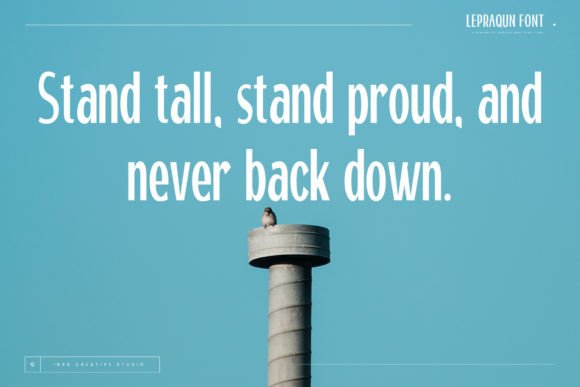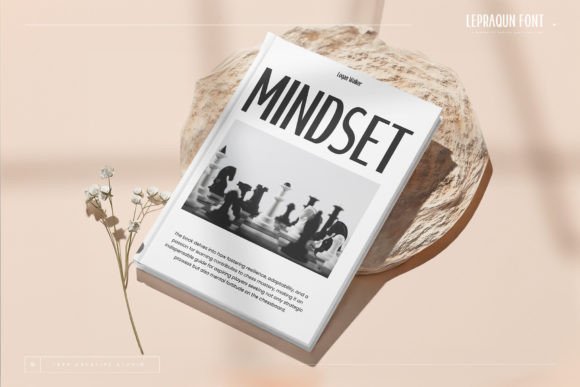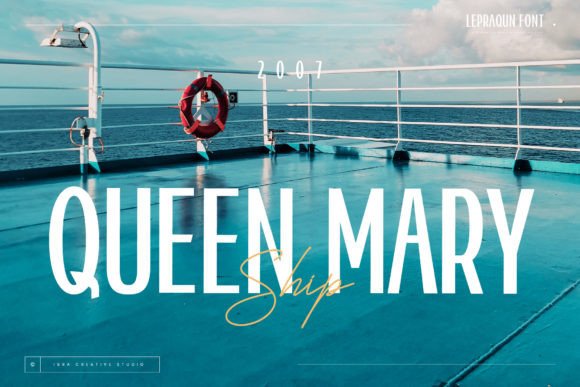
Introduction to Lepraqun Font
As a designer, have you ever found yourself staring at a blank canvas, unsure of how to bring your creative vision to life? For many of us, the perfect font can be the spark that sets the entire project ablaze. And when it comes to minimalist sans-serif fonts, few options can match the sleek sophistication of the Lepraqun Font.
Whether you’re working on a high-quality design resource or a complex creative project, the Lepraqun Font offers a refined and space-efficient design that’s sure to elevate your work. Its slender letterforms and clean lines create a transparent background that lets your message shine, making it an ideal choice for projects that demand a modern aesthetic without sacrificing readability.
Key Features of Lepraqun Font
- High-quality design resource ideal for creative projects, offering a unique aesthetic.
- Features a large character set, including uppercase and lowercase letters, numbers, and special characters.
- Perfect for use in various design projects, from logos and branding to digital art and creative writing.
Honest Review: Lepraqun Font
As a designer, I’m always on the lookout for high-quality design resources to enhance my creative projects. Recently, I came across the Lepraqun Font, and I’m excited to share my honest review with you.
What works well: ✨ The Lepraqun Font is a beautiful, hand-drawn font that’s perfect for adding a personal touch to your designs. It’s available for free download, making it a fantastic resource for designers of all levels. The font has a transparent background, which makes it easy to customize and pair with other design elements.
What doesn’t work well: ⚠️ While the Lepraqun Font is a great addition to any design project, it may not be suitable for professional or commercial use. Additionally, the font’s bold and playful style may not be suitable for all types of projects, such as formal or technical documents.
Overall impression: I’m impressed with the Lepraqun Font’s unique style and versatility. It’s a great resource for designers looking to add a creative twist to their projects. However, it’s essential to consider the font’s limitations before using it in a commercial or professional setting.
- High-quality, hand-drawn font
- Perfect for creative projects, such as branding, illustrations, or posters
How to Use Lepraqun Font
Lepraqun Font is a high-quality design resource that can elevate your creative project to the next level. With its unique and stylish design, it’s perfect for adding a touch of elegance to your visual content.
Tips for Getting the Most Out of Lepraqun Font
To get the most out of Lepraqun Font, use it in conjunction with other design elements to create a cohesive look. Experiment with different font sizes, colors, and combinations to find the perfect balance.
Lepraqun Font is perfect for:
- Brand logos and marketing materials.
- Editorials and publications.
Alternatives to Lepraqun Font
Aurora Script is a beautiful, high-quality font perfect for designers working on creative projects that require a touch of elegance. It’s ideal for use in wedding invitations, magazine covers, or any design where a sophisticated, handwritten look is desired. With a transparent background, this font is highly versatile and can be easily combined with other design elements.
Compared to Lepraqun Font, Aurora Script has a more refined and delicate appearance, making it suitable for projects where a subtle, sophisticated look is required. While Lepraqun Font is often used for bold, eye-catching designs, Aurora Script excels at adding a touch of sophistication and class to any design.
Great Vibes is a fun, modern font that’s perfect for designers working on creative projects that require a lively and energetic feel. It’s ideal for use in social media graphics, advertisements, or any design where a bold and playful look is desired. With a transparent background, this font is highly versatile and can be easily combined with other design elements.
Compared to Lepraqun Font, Great Vibes has a more casual and relaxed appearance, making it suitable for projects where a fun and carefree vibe is required. While Lepraqun Font is often used for bold, eye-catching designs, Great Vibes excels at adding a touch of playfulness and energy to any design.